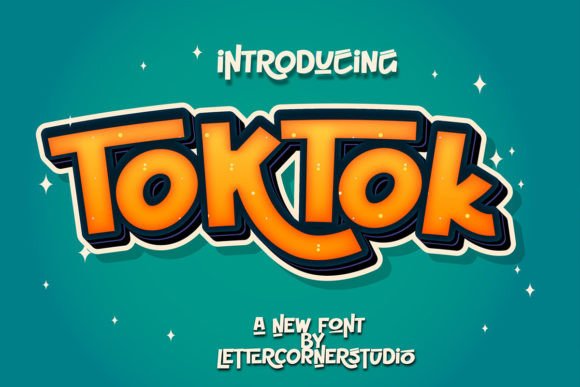
Harness the captivating energy of Toktok, a display font that dances off the screen, injecting a touch of playfulness into your designs. This modern and visually striking typeface, brought to life by the skilled artisans at Lettercorner Studio, will transform your creative projects into vibrant expressions of style.
Toktok's playful curves and bold strokes create a lively rhythm that dances across any surface it graces. Whether you're crafting a fashion catalog, branding a new product, or designing a whimsical menu, Toktok will leave an unforgettable impression. Its versatility extends to t-shirt printing, where its bold lines and playful spirit will make your designs pop with personality.
If you seek a font that sparks joy and captures attention, look no further than Toktok. Its infectious energy will infuse your work with a sense of fun and creativity, setting it apart from the ordinary. Embrace the magic of Toktok and embark on a design journey where imagination knows no bounds.